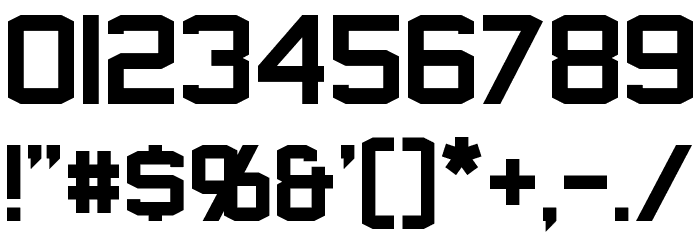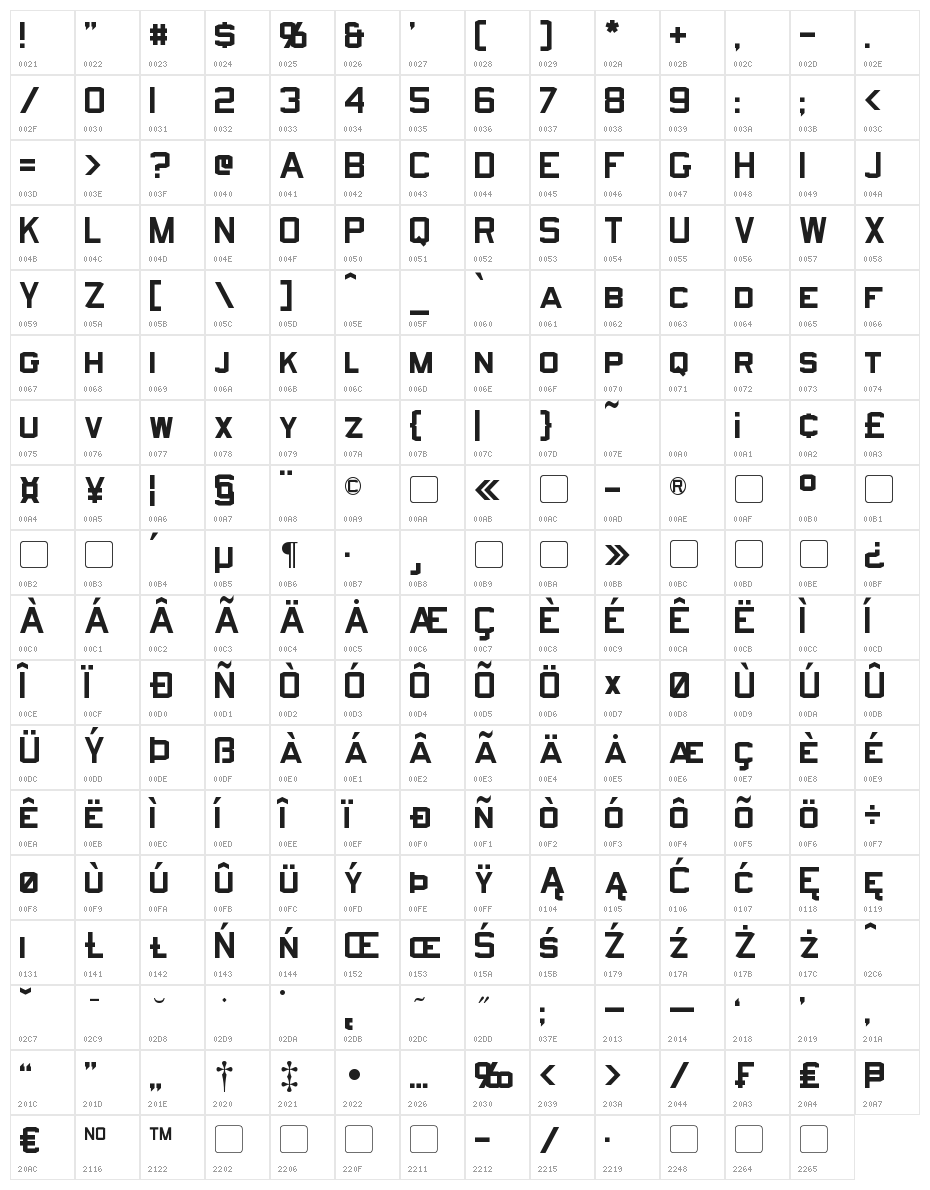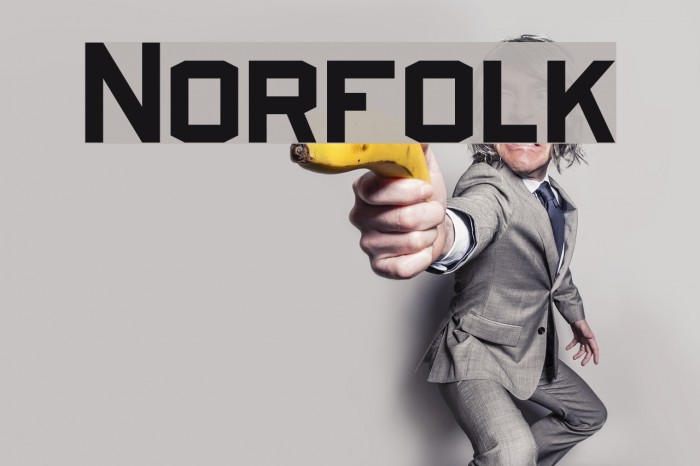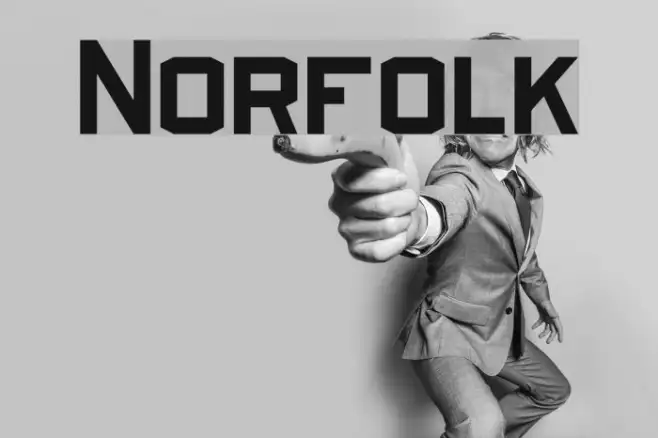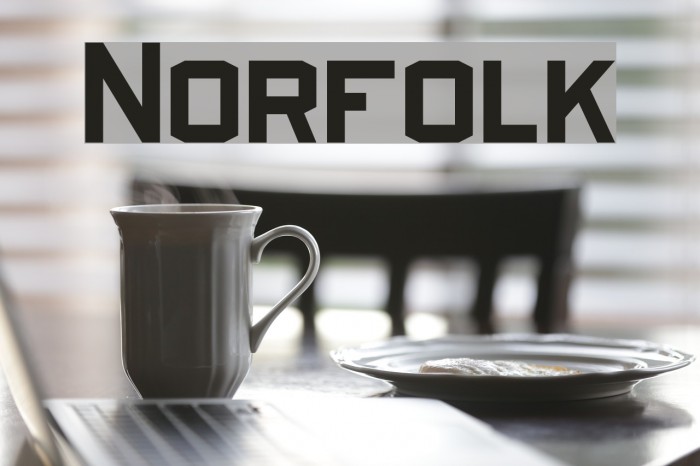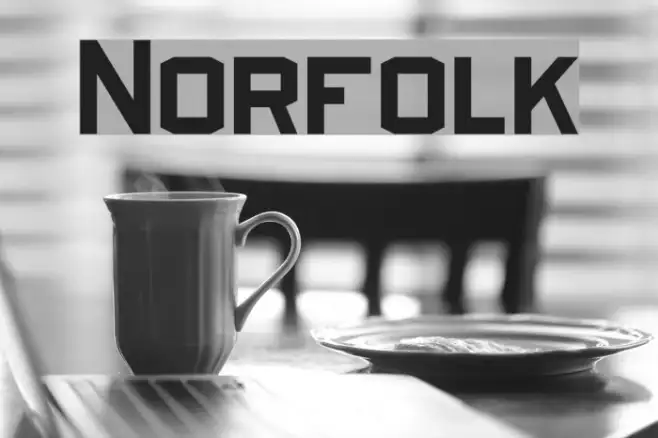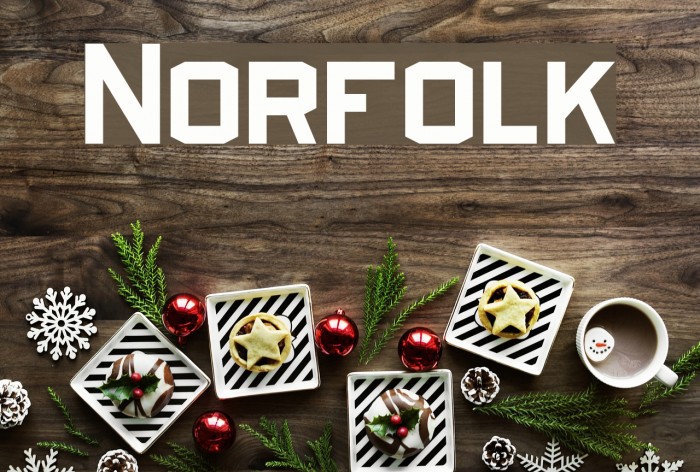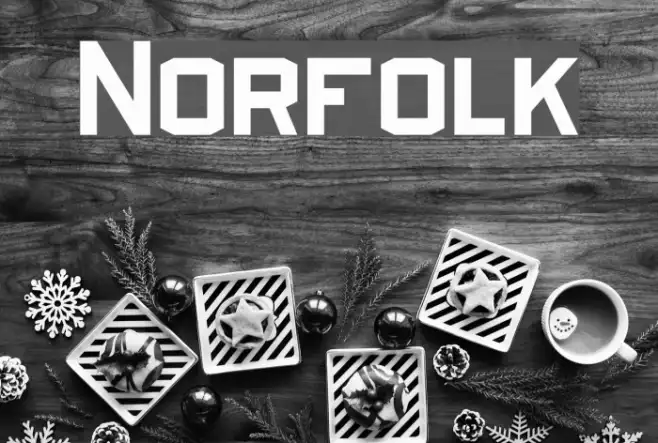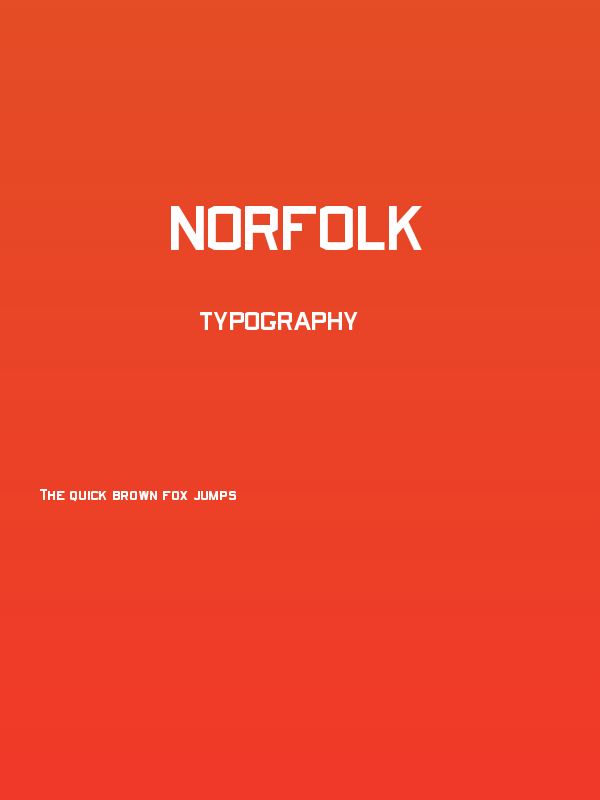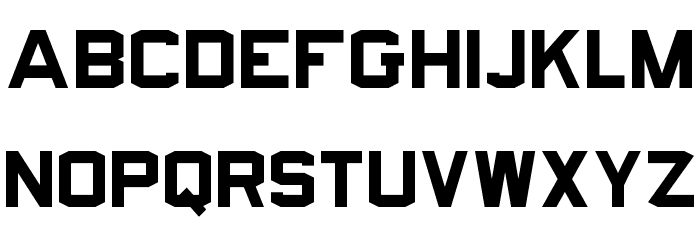
Norfolk Font
Norfolk Description
This font features a bold, geometric design with a modern and industrial feel. The characters are constructed with sharp angles and straight lines, giving it a strong and assertive appearance. The uppercase and lowercase letters maintain a consistent height, contributing to a uniform look. The numerals and special characters follow the same angular style, ensuring cohesion across all elements. This font's distinct style makes it suitable for projects that require a bold and impactful visual statement.
Proposed ProjectsIdeal for branding, posters, headlines, and any design requiring a strong visual impact.